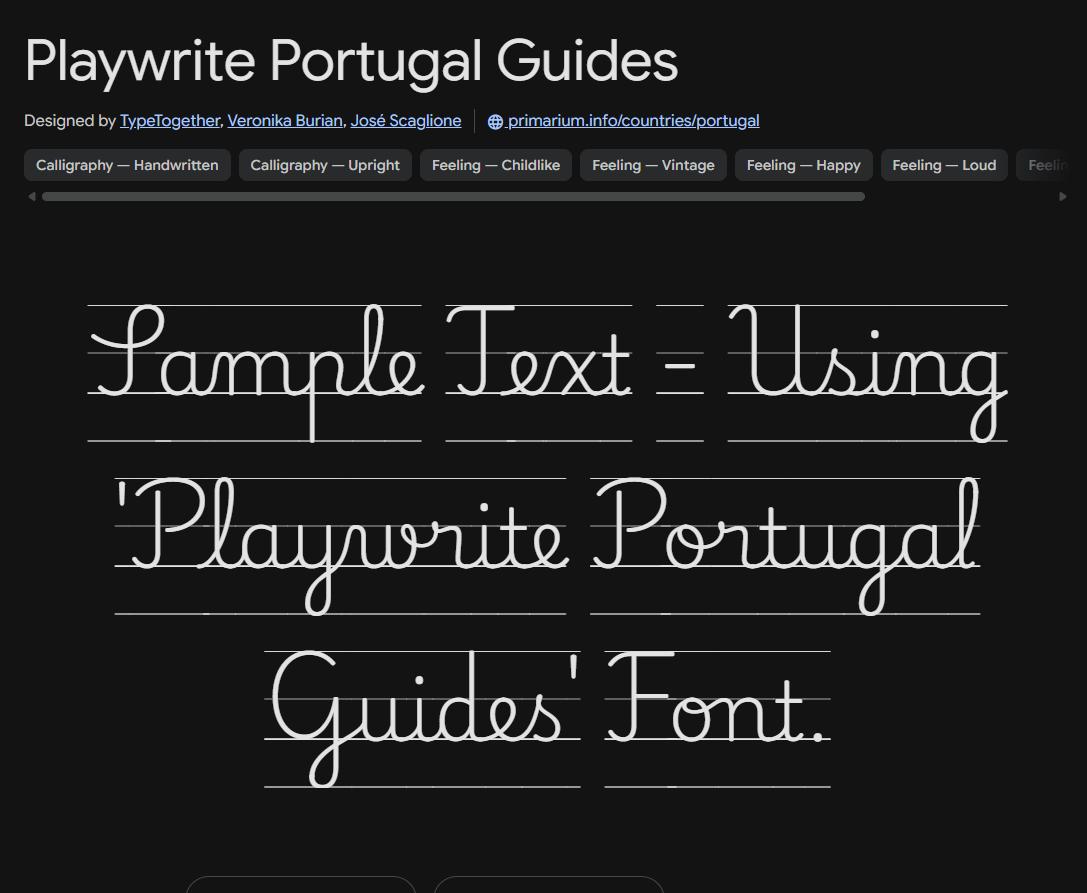
Playwrite Portugal Guides, a specialized single-style typeface engineered by the collaborative expertise of TypeTogether's Veronika Burian and José Scaglione, serves as a sophisticated pedagogical instrument designed to bridge the gap between digital typesetting and manual penmanship within the Portuguese educational framework. By embedding structural ruling lines directly into the font's vertical metrics, the typeface utilizes precise x-height alignments and optimized ascender-to-descender ratios to facilitate the motor-sensory development of cursive literacy. This technical implementation leverages a modular skeletal structure and refined glyph geometry to ensure that the ductus of each character adheres to national handwriting standards, providing an anatomically consistent typographic environment that enhances both legibility and the acquisition of fluid writing rhythms for primary learners.
The Playwrite Portugal Guides font family functions as a specialized pedagogical engine within modern typography, meticulously engineered to bridge the gap between digital precision and the organic, upright calligraphic traditions of Lusophone education. This monolinear handwritten typeface utilizes a consistent stroke weight to project a vibrant, happy disposition, while its vintage-inspired skeletal structure evokes a rugged, tactile authenticity that mirrors the physical friction of ink on paper. Its childlike simplicity is paradoxically loud in its communicative efficacy, employing a playful cadence of glyphs that maintain strict orthographic standards through integrated dashed baselines and mid-lines. By synthesizing these technical educational parameters with a high-contrast x-height, Playwrite Portugal Guides transforms a static character set into a dynamic instructional landscape, successfully capturing the unrefined, energetic spirit of early penmanship within a sophisticated, semantically-rich typographic framework.
The Playwrite Portugal Guides typeface, an intricate pedagogical tool engineered by TypeTogether to adhere to regional educational standards, is fundamentally unsuitable for high-stakes corporate legal documentation, mission-critical industrial schematics, or luxury brand identities where neutral legibility and sophisticated hierarchy are paramount. Due to its specialized skeletal structure-which incorporates literal horizontal guides, baselines, and x-height markers designed for primary school motor skill development-the font carries a heavy cognitive load that disrupts the "invisible typography" required in professional financial reporting or medical labeling. Utilizing a script so deeply rooted in instructional scaffolding and specific cursive ligatures in a commercial or technical environment would result in a catastrophic loss of perceived authority, as its didactic visual language contradicts the streamlined efficiency of standardized grotesque or humanist sans-serifs needed for rapid data ingestion and high-velocity information architecture.
Playwrite Portugal Guides is primarily designed for educational materials and primary school handwriting practice. The inclusion of dashed or solid guide lines facilitates muscle memory development by providing a fixed vertical metric for ascenders and descenders.
Built-in guide lines ensure consistent letter placement and height across different words and sentences. By embedding rules directly into the glyph bounding box, the typeface eliminates the need for manual grid overlays, maintaining strict adherence to the baseline and mean line.
This font family works exceptionally well for interactive tracing apps and digital handwriting tablets used in modern classrooms. High-contrast stroke paths allow for precise hit-detection algorithms when tracking stylus input across the digital canvas.
Playwrite Portugal Guides is part of a larger variable font project that offers flexibility in stroke thickness and angle. Utilizing the 'wght' and 'slnt' axes within the font's metadata allows designers to interpolate custom instances that match specific regional curriculum standards.
The cursive connections are engineered to flow smoothly, mimicking the continuous motion of a pen on paper. Advanced ligature tables and contextual alternates manage the entry and exit strokes, ensuring seamless GID transitions in Adobe Creative Suite and Figma.
The typeface features clean vector outlines that maintain crisp edges even when scaled to large sizes for classroom posters. Optimized PostScript hinting ensures that the thin guide lines remain visible without becoming distorted or disappearing during high-DPI laser printing processes.
It provides a nostalgic yet modern aesthetic that evokes themes of education, craftsmanship, and personal touch. The monolinear stroke architecture creates a friendly, approachable brand voice that resonates with pedagogical and child-focused industries.
While designed for larger display use in teaching, the open counters and simplified forms help preserve clarity. Strategic x-height ratios ensure that the core letterforms remain distinct, though legibility is most stable when the guide lines are rendered at a minimum of 12pt.
Clean, geometric sans-serifs or sturdy slabs provide a structured contrast to the fluid motion of the Portugal Guides script. Pairing with a high-readability grotesque creates a functional hierarchy where the script acts as the focal point for instructional content.
Users can access a variety of stylistic sets and character variants to customize the look of specific letters. The 'calt' feature is particularly critical here, as it dynamically swaps glyphs to maintain the natural flow of the Portuguese handwriting model.